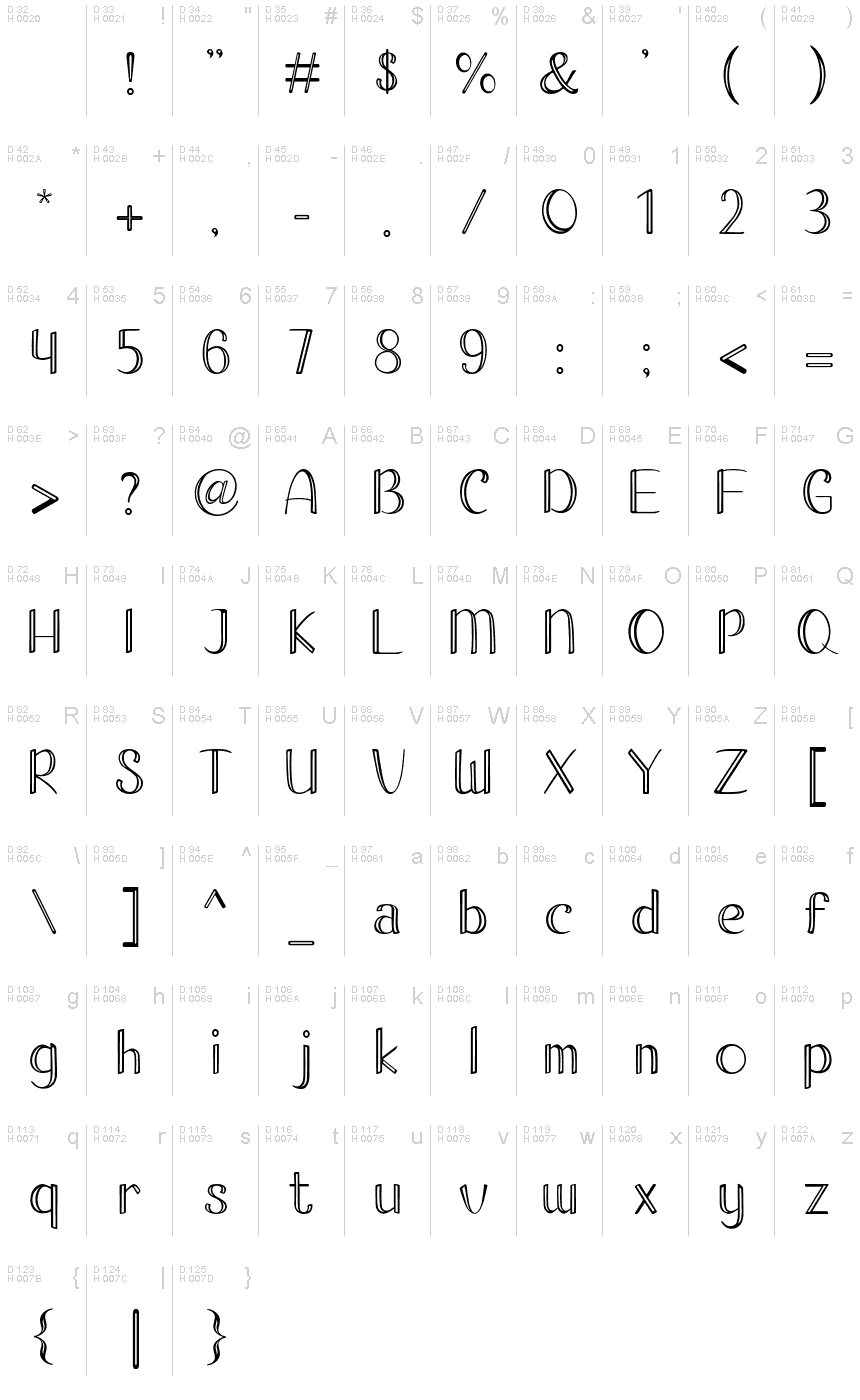
Pathuk Regular
Pathuk font is a free display typeface designed by Stefanna Shiva.
Pathuk is a typeface based from Bakpia Pathuk, a famous snack from Jogjakarta. The sweetness of Bakpia is converted to the rounded shape of the typeface and the filling is drawn as the thin hole on each letter.